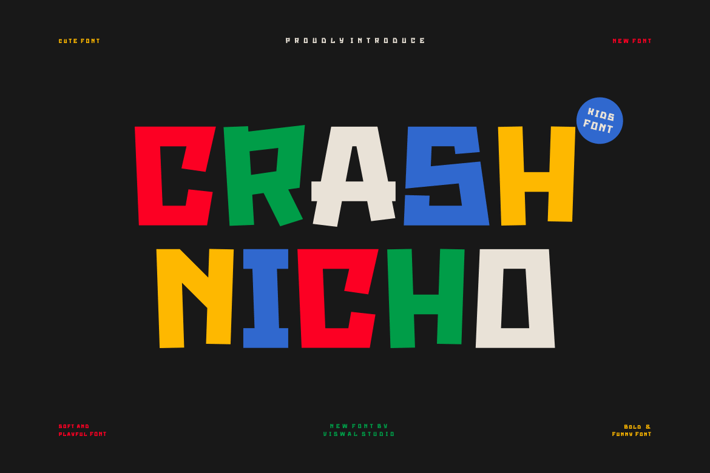
Crash Nicho - Comic & Playful Font
Presenting Crash Nicho - Font is suitable for badge, labels, logo, branding, magazine, poster and etc. Our fonts have Uppercase & Lowercase, Numeral & Punctuation, Multilingual support and Opentype Features. For Amazing designs you can mix with other fonts as a complement.